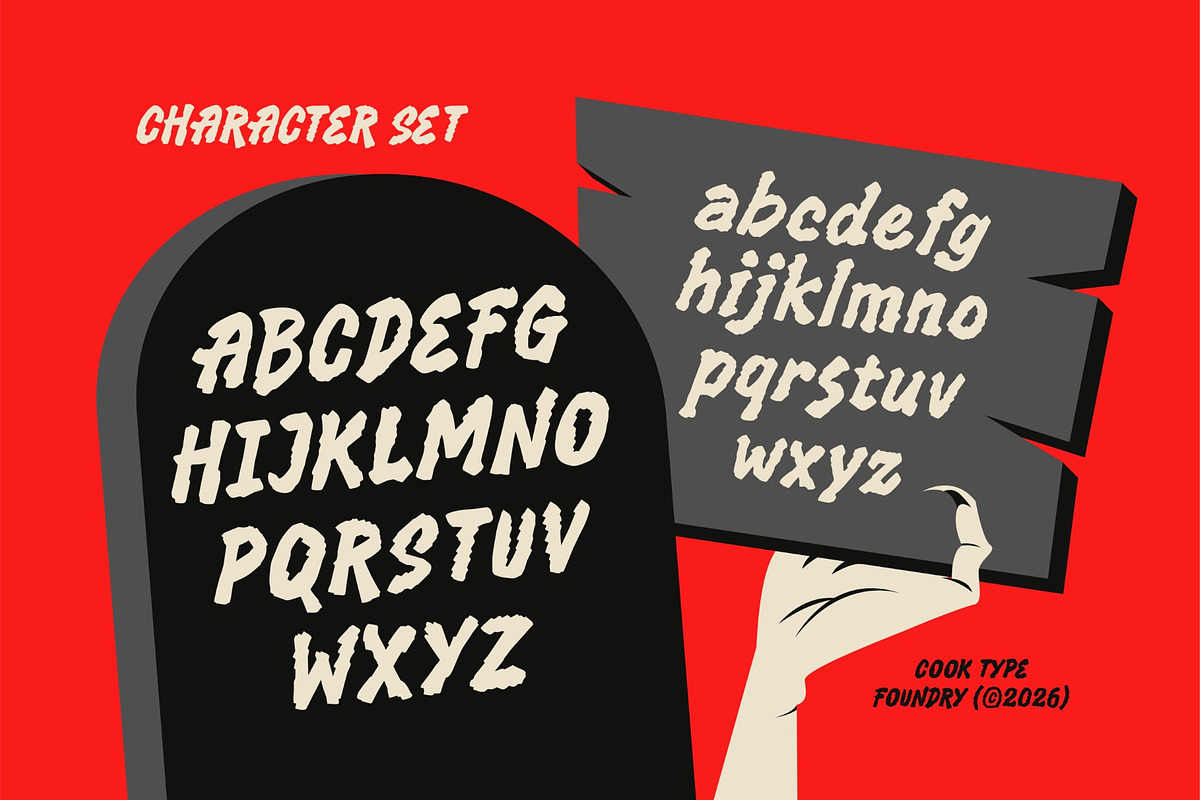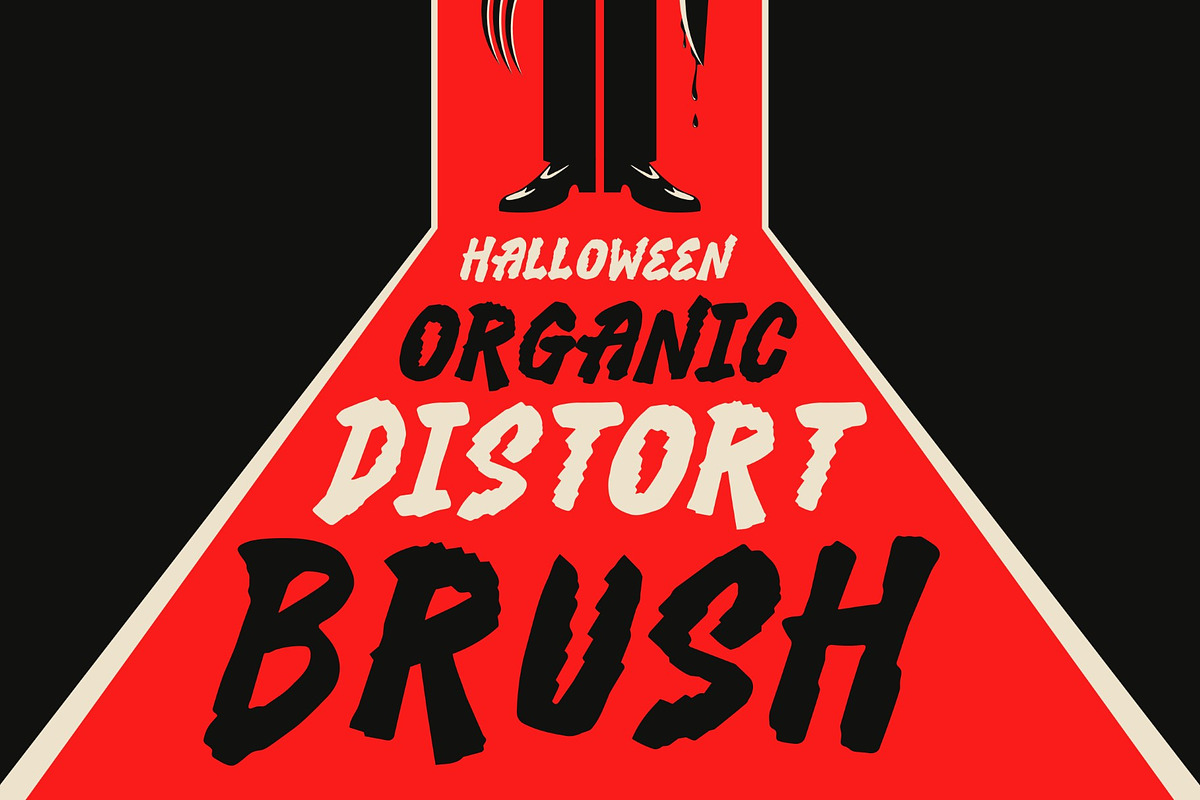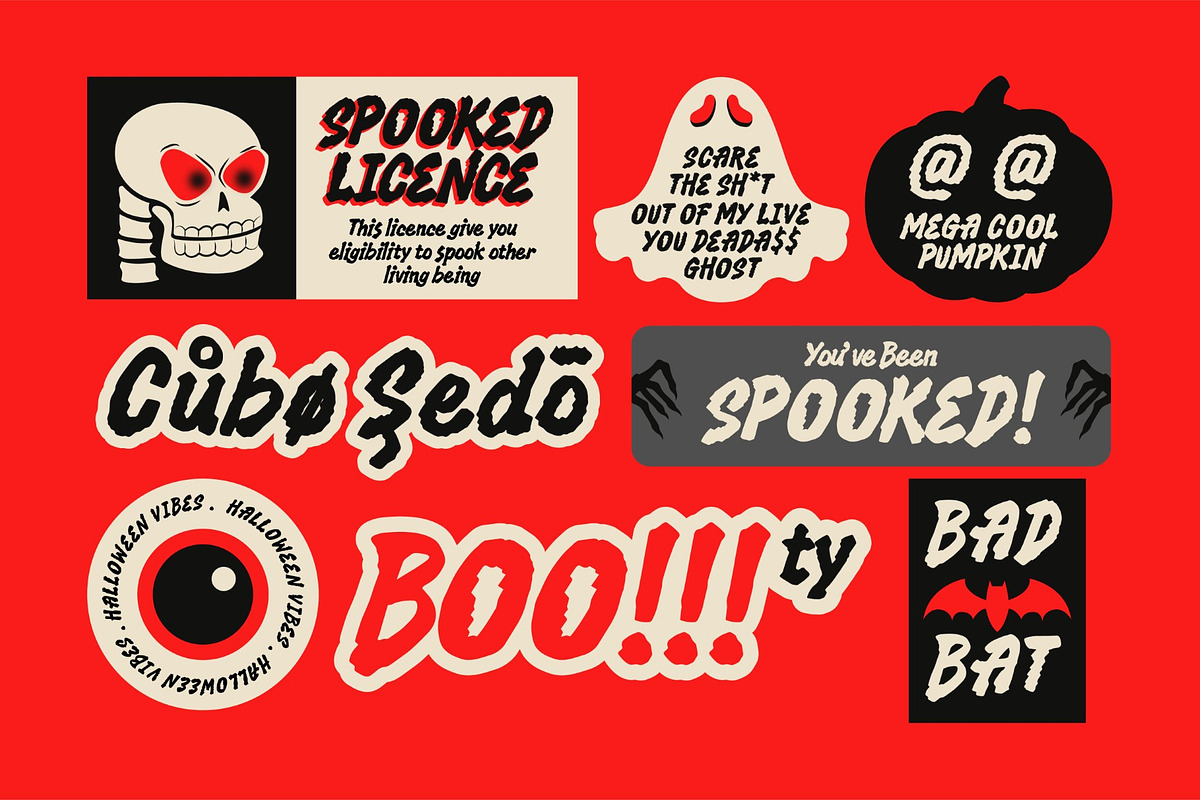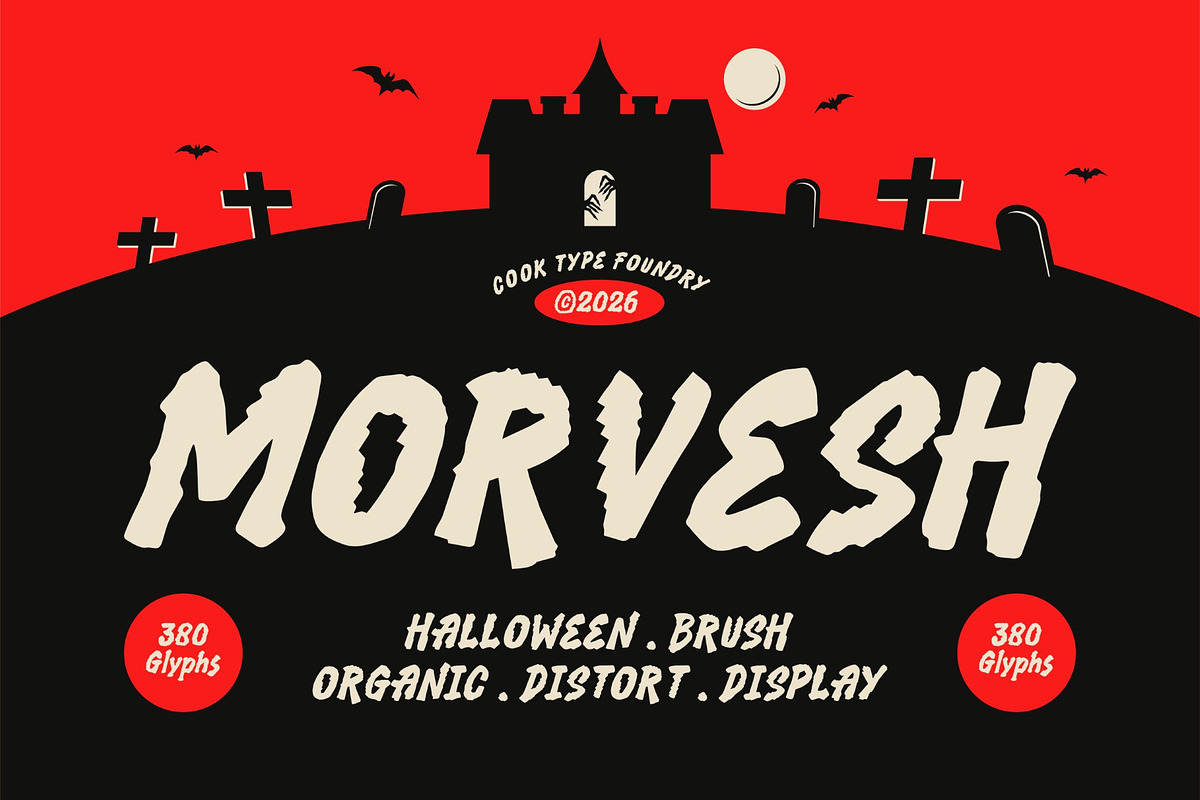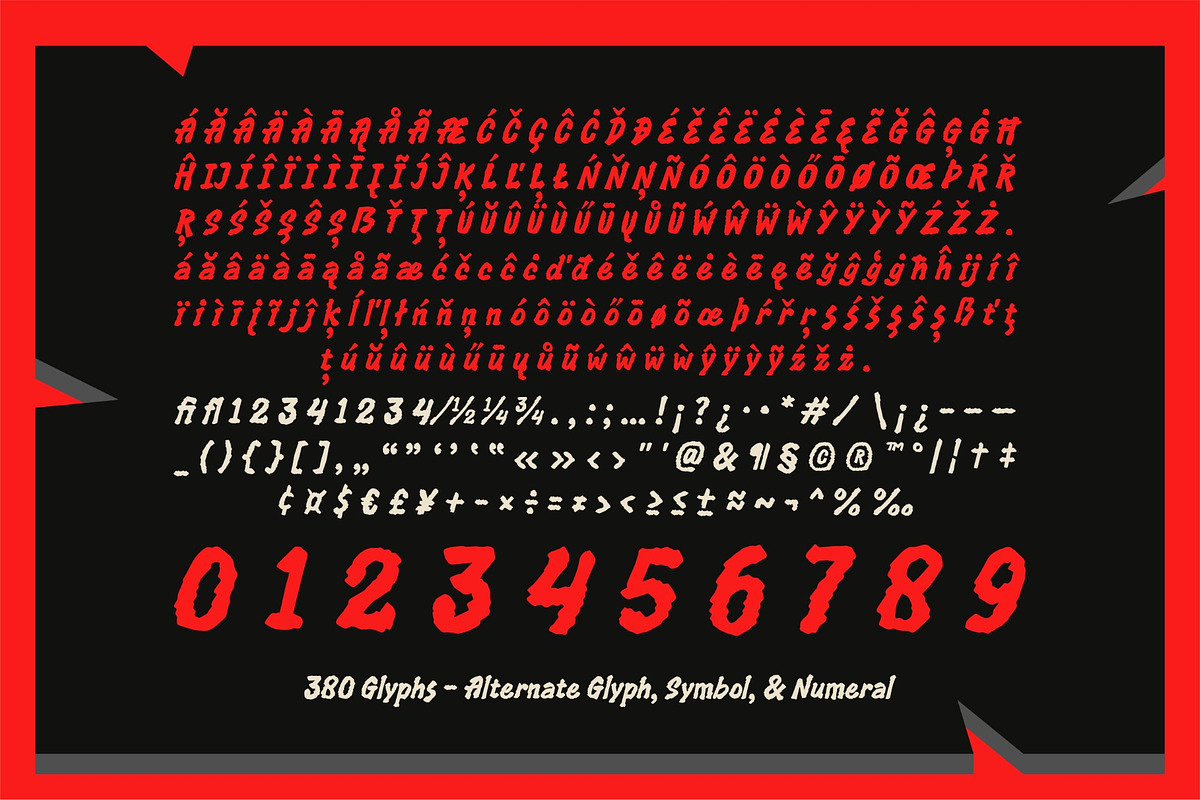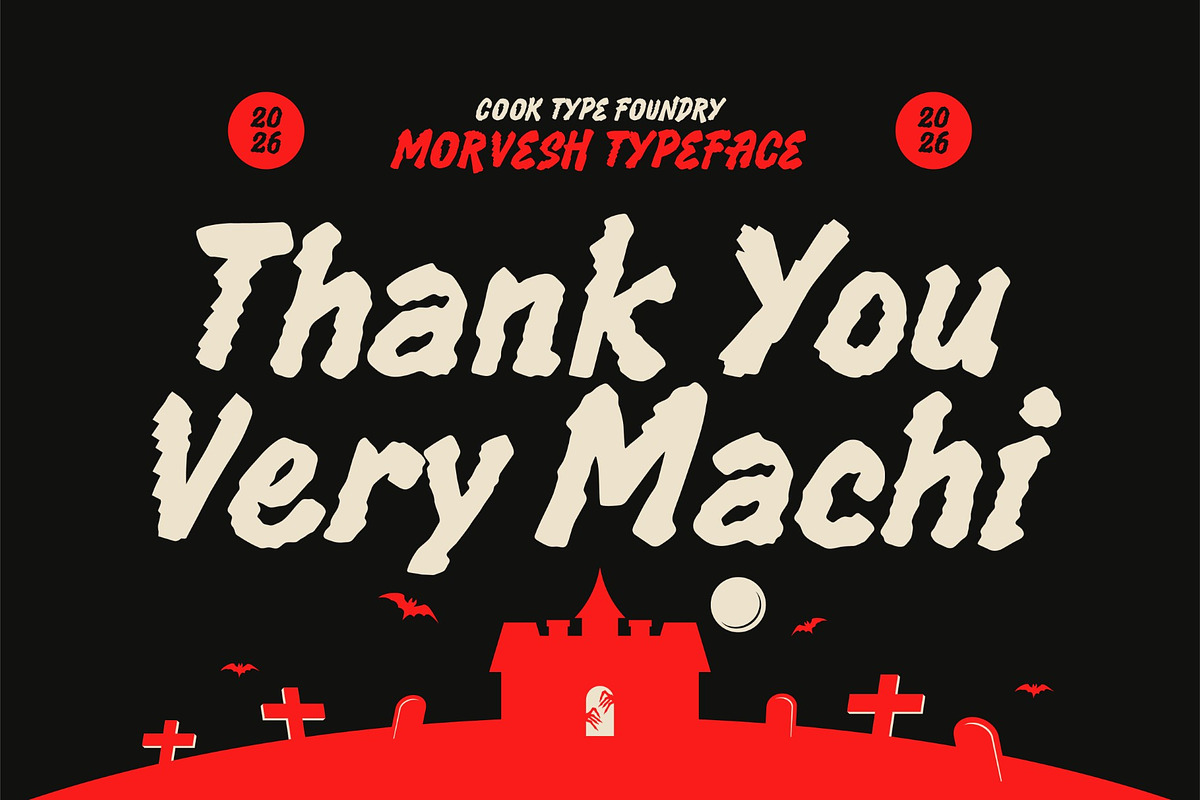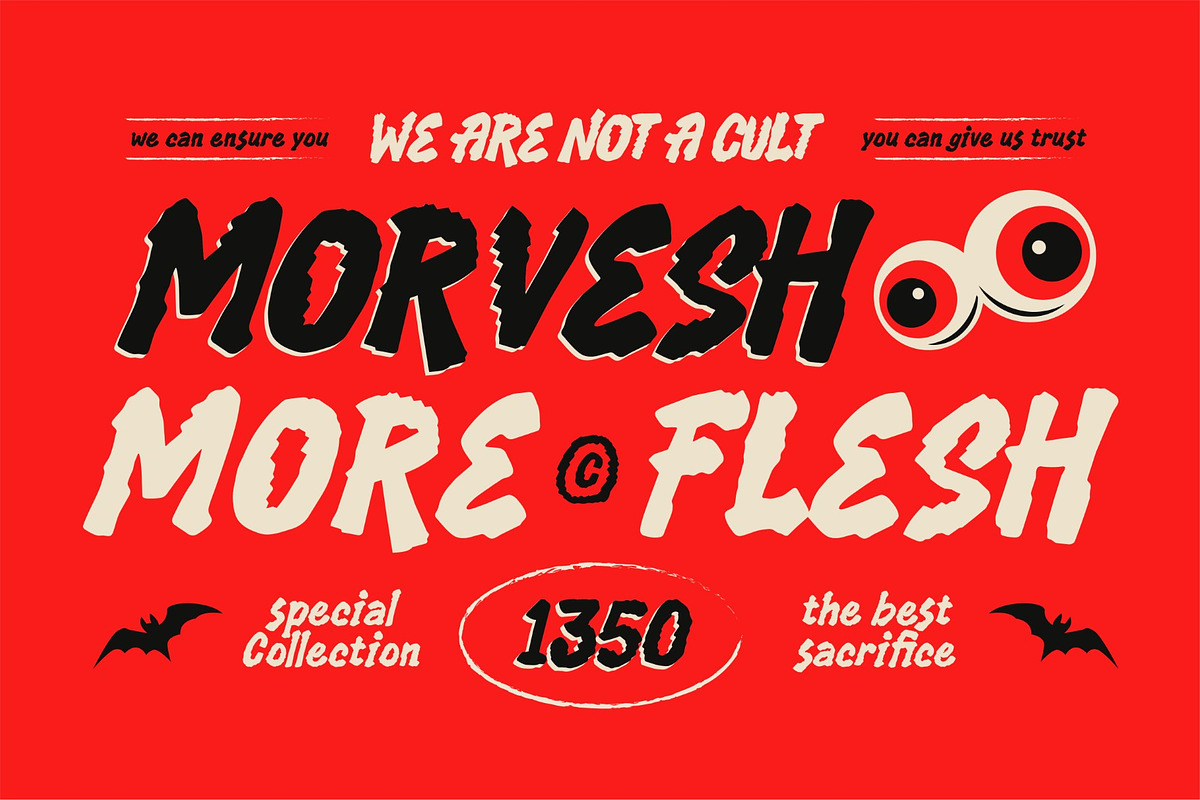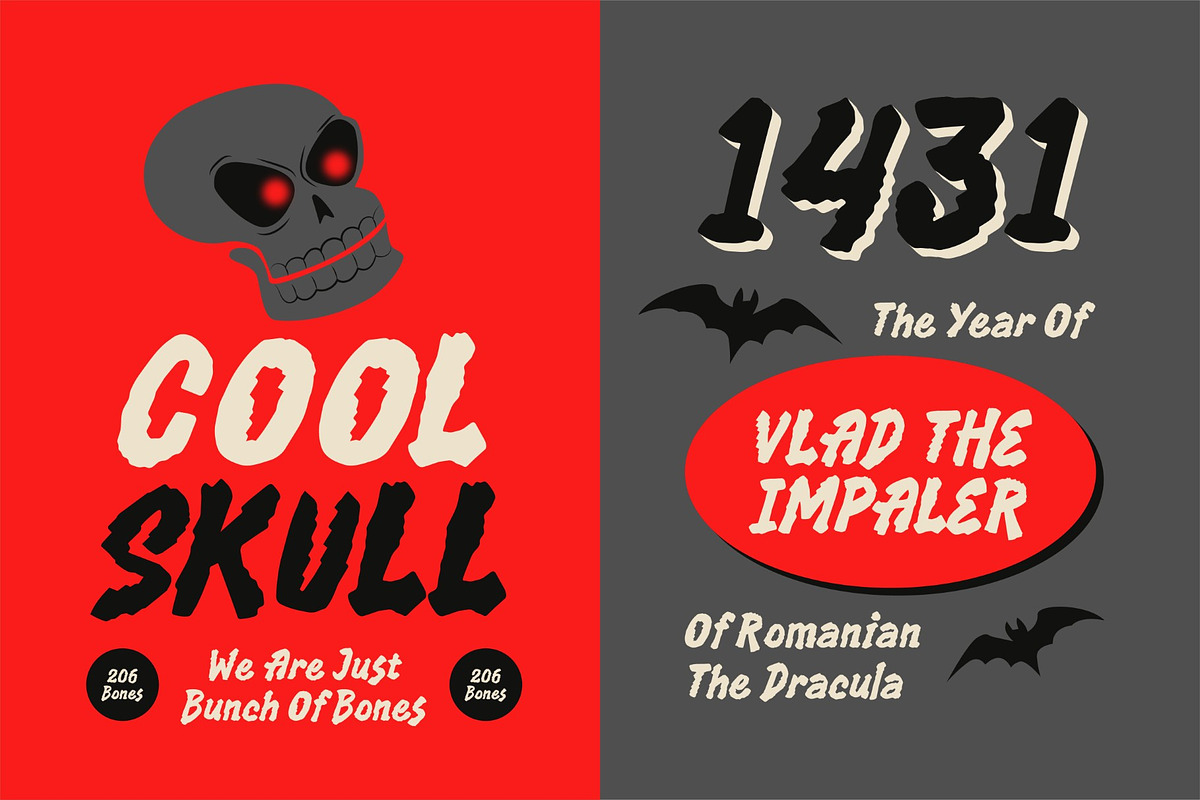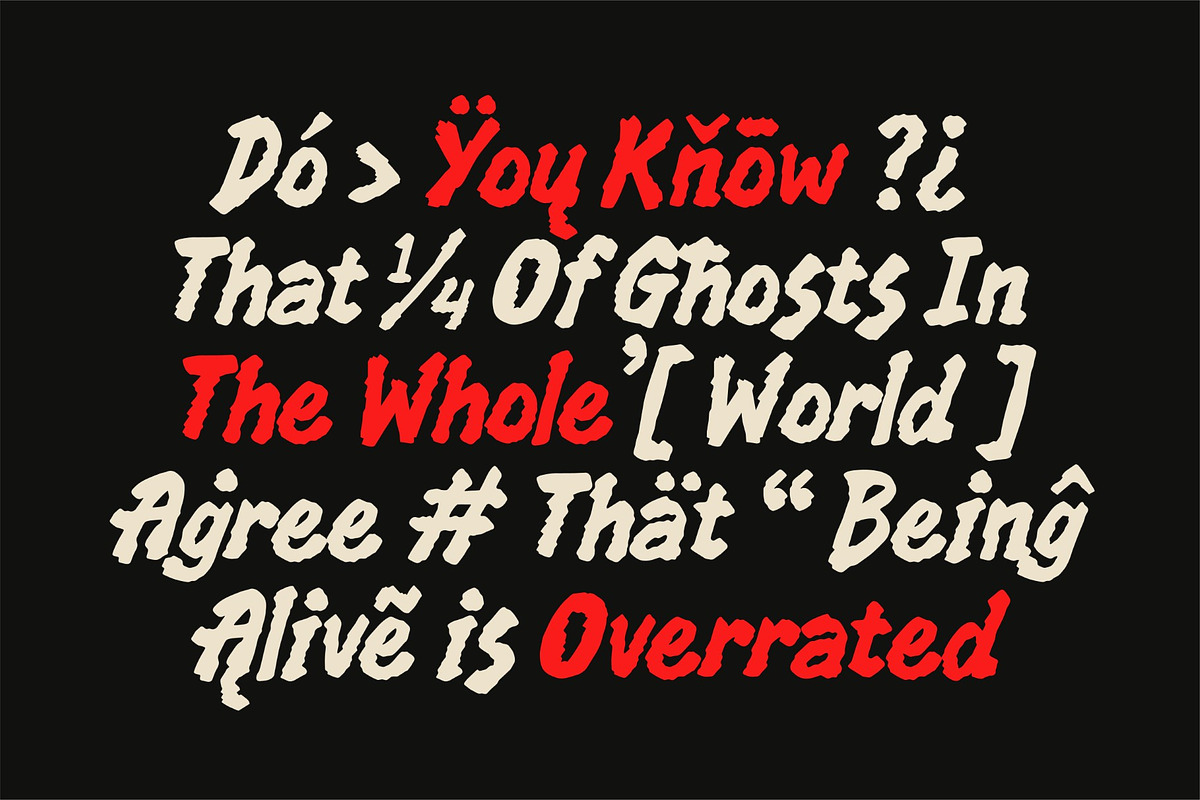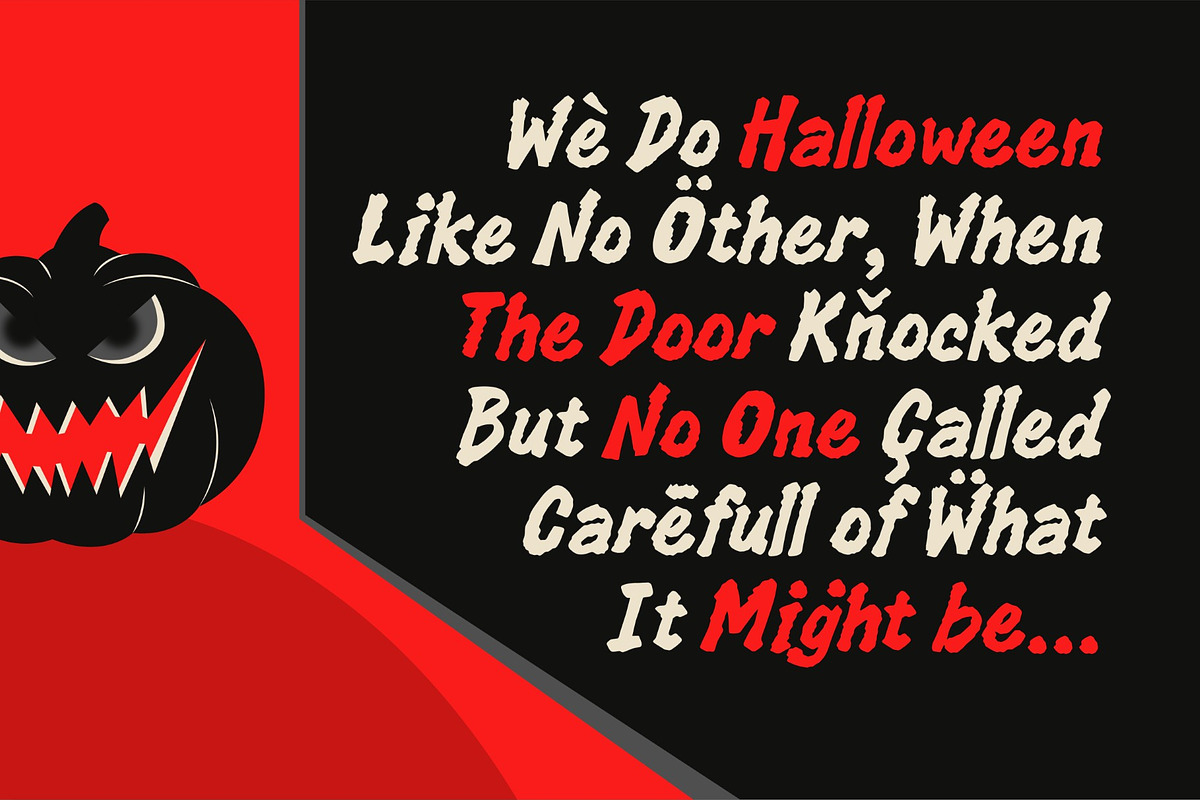
Morvesh
Morvesh is a bold, rough, and expressive display typeface inspired by Halloween aesthetics, hand-painted brush lettering, and organic distortion. Its irregular shapes, rugged edges, and energetic strokes create a raw handcrafted personality that instantly grabs attention. Morvesh is designed to bring a dark, rebellious, and artistic character to your creative projects.
It is perfect for headlines, logotypes, magazines, packaging, quotes, movies, games, cover albums, book covers, and flyers, it's a perfect solution for creating eye-catching designs that stand out in any context.